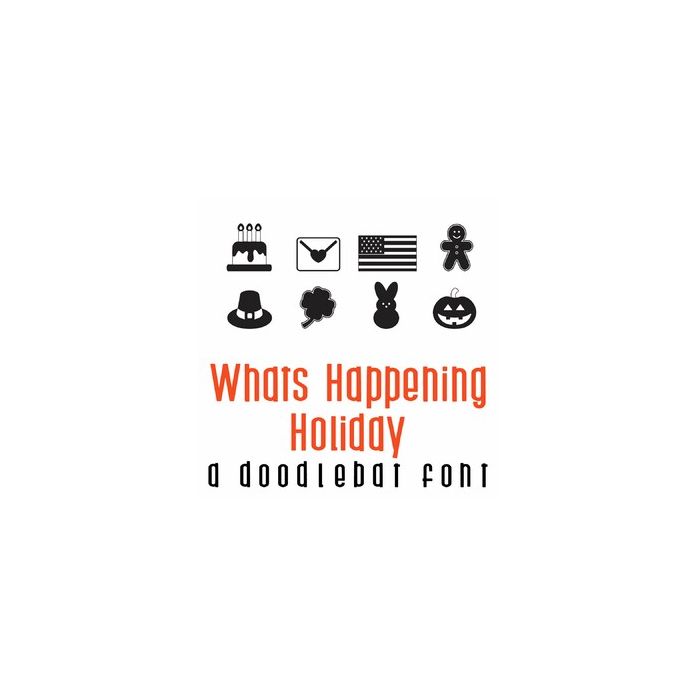
This fun doodlebat font features 26 iconic symbols for all holidays around the year. Perfect for calendars, classrooms, cards, gifts, decor, crafts, scrap book pages, planner stickers and more!